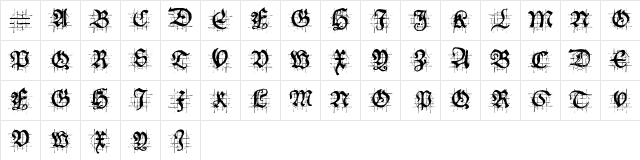
HansSchoenspergerRandomish Regular
Design Context for HansSchoenspergerRandomish Typeface
HansSchoenspergerRandomish is a composed and adaptable typeface that performs quietly and consistently across a wide range of design contexts.